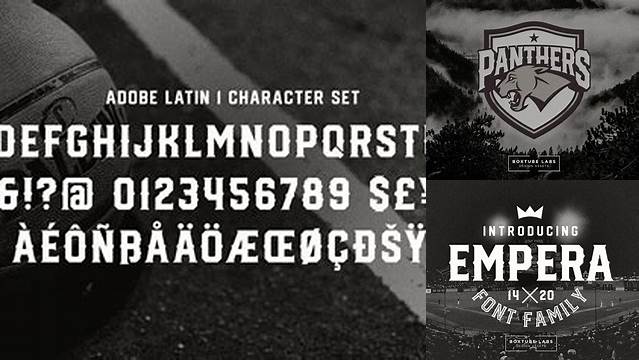
Free Empera Display Font Download: Your Guide
Embarking on a design project often hinges on selecting the right font, and when it comes to making a statement, a display font can be a game-changer. If you're on the hunt for a font that exudes sophistication and modernity, the Empera display font might just be your perfect match. In this comprehensive guide, we'll dive deep into the world of Empera, exploring its characteristics, its uses, and how you can snag it for free. Let’s get started, guys!
1. What is Empera Display Font?
Empera is more than just a typeface; it's a design statement. Characterized by its clean lines, elegant curves, and a contemporary feel, Empera display font stands out as a versatile option for various design projects. Its unique letterforms strike a balance between modern minimalism and classic sophistication, making it ideal for headlines, logos, posters, and other applications where visual impact is paramount. Imagine the sleek, professional look it can bring to your brand's logo or the eye-catching appeal it can add to your website headers. The beauty of Empera lies in its ability to command attention without being overly flashy, making it a go-to choice for designers seeking a refined yet impactful aesthetic. Its adaptability ensures that it can seamlessly integrate into a variety of design styles, from corporate branding to creative marketing campaigns. The versatility of this font extends to both digital and print media, ensuring a cohesive look across all platforms. It's the kind of font that makes people stop and take notice, drawing them in with its subtle elegance and undeniable presence. You see, Empera display font isn't just about letters; it's about creating a visual experience that resonates with your audience.
2. Key Characteristics of Empera Font
When you're diving into the world of fonts, understanding their unique characteristics is key. Empera display font boasts a distinct set of features that make it a standout choice for designers. Let’s break down some of its key characteristics. First, the clean lines are immediately noticeable, lending the font a modern and minimalist aesthetic. This simplicity allows it to be highly legible, even at larger sizes, which is crucial for display purposes. Secondly, the elegant curves add a touch of sophistication and refinement. These subtle curves prevent the font from feeling too sterile or clinical, giving it a warmer, more inviting feel. The overall impression is one of understated elegance, perfect for brands that want to convey a sense of class and style. Moreover, the font’s balanced letterforms ensure visual harmony, making it easy on the eyes and enhancing readability. The spacing between letters, known as kerning, is carefully considered to prevent overcrowding or excessive gaps, resulting in a polished and professional appearance. Empera display font also features a generous x-height, which refers to the height of the lowercase letters. This contributes to its legibility and makes it particularly well-suited for use in headings and titles. In essence, the key characteristics of Empera display font – its clean lines, elegant curves, and balanced letterforms – combine to create a typeface that is both visually striking and highly functional. Whether you’re designing a website, a poster, or a logo, Empera offers a blend of modernity and sophistication that is sure to elevate your project. Trust me, guys, you'll love how these characteristics work together to create something truly special.
3. Where to Use Empera Display Font
Okay, so you're intrigued by Empera, but where exactly can you use it? The versatility of Empera display font makes it a fantastic choice for a wide range of projects. Think about it: its elegant yet modern aesthetic can elevate everything from branding materials to website designs. Let’s explore some specific applications where Empera truly shines. First up, logos. A strong, memorable logo is crucial for brand identity, and Empera's clean lines and sophisticated curves make it perfect for creating a logo that exudes professionalism and style. Imagine your company name rendered in Empera, instantly conveying a sense of quality and attention to detail. Next, consider headings and titles. Empera’s strong presence makes it ideal for grabbing attention in headlines, website headers, and poster titles. Its legibility at larger sizes ensures your message is clear and impactful. For branding materials, such as business cards and letterheads, Empera can help establish a cohesive and polished brand identity. Using the same font across all your materials creates a consistent visual message that reinforces your brand's image. Websites can also benefit greatly from Empera. Its modern feel makes it a great choice for website headers, navigation menus, and even body text (though it’s primarily a display font, so use it sparingly for longer paragraphs). Posters and flyers are another area where Empera can shine. Its eye-catching design helps your message stand out in crowded environments, ensuring your audience takes notice. And let’s not forget social media graphics. Empera can add a touch of elegance to your social media posts, helping your content stand out in the busy online world. Basically, guys, Empera display font is a versatile tool that can enhance almost any design project. Its blend of modernity and sophistication makes it a go-to choice for designers looking to make a lasting impression. So go ahead, explore the possibilities and see where Empera can take your designs!